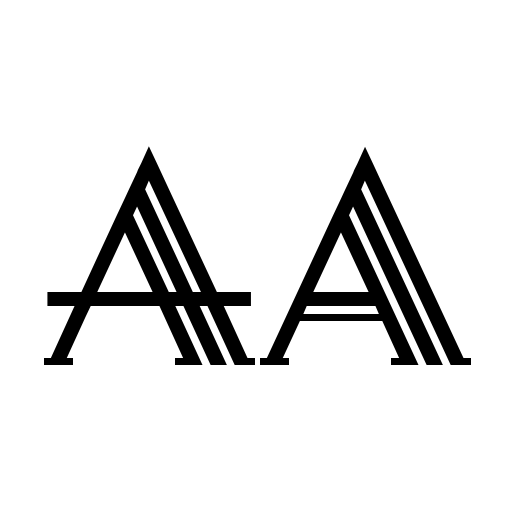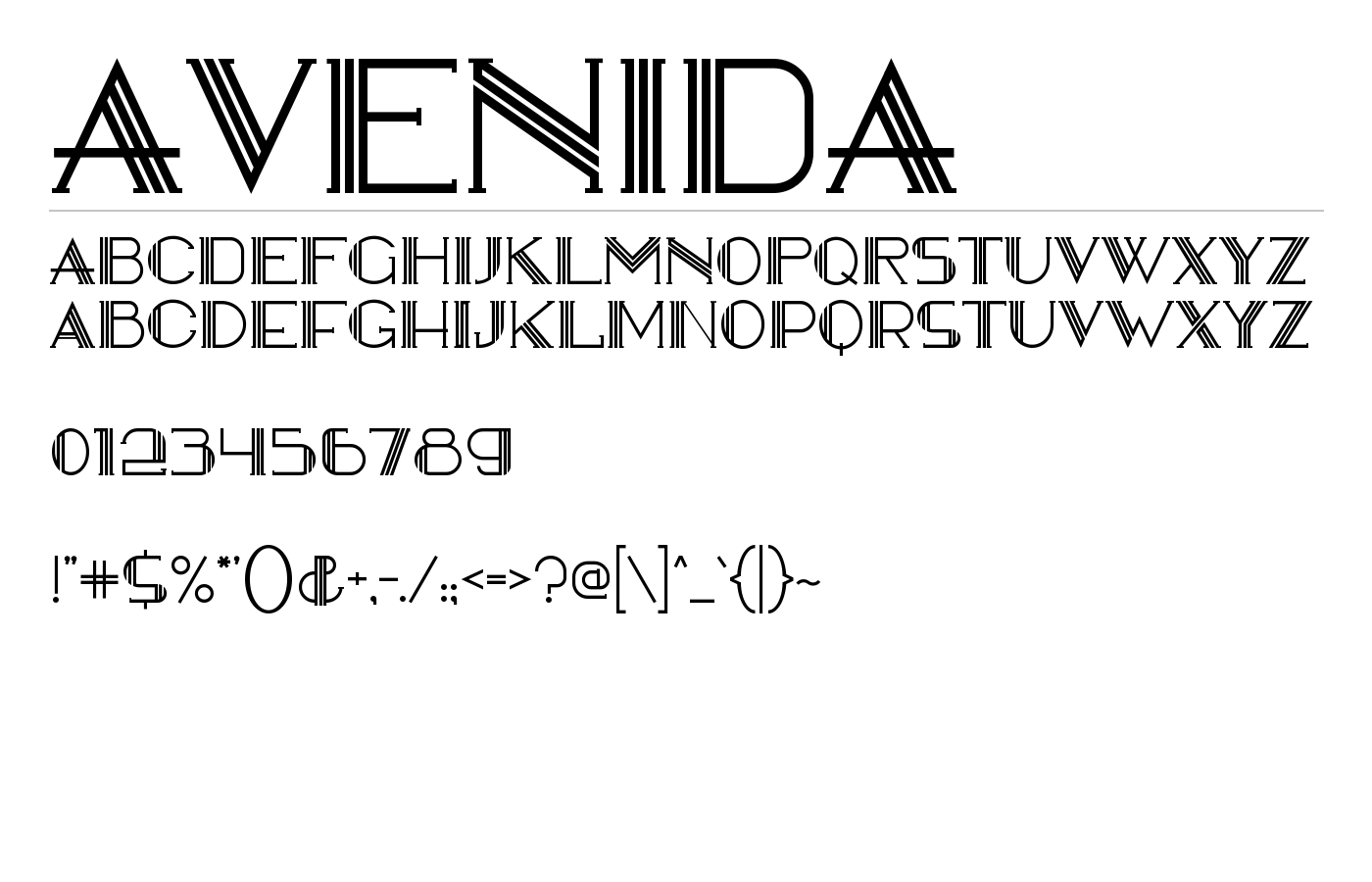
Avenida is a striking sans serif font that blends modern geometric style with art deco elegance through its distinctive multi-line strokes and sharp angles. Its tall, narrow letterforms and high contrast between thick and thin lines give it a sophisticated, decorative feel, making it ideal for eye-catching headlines, logos, and luxury branding where a stylish and refined impact is desired.
AVENIDA Font
About AVENIDA Font